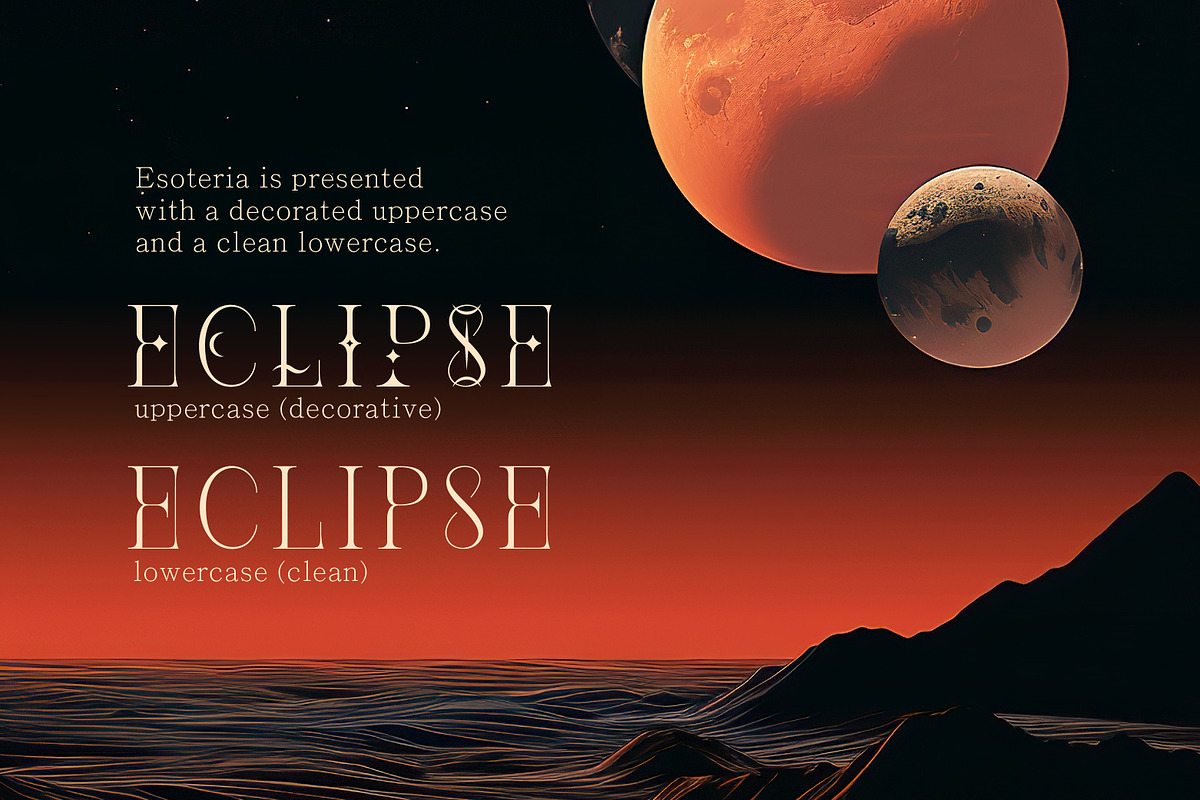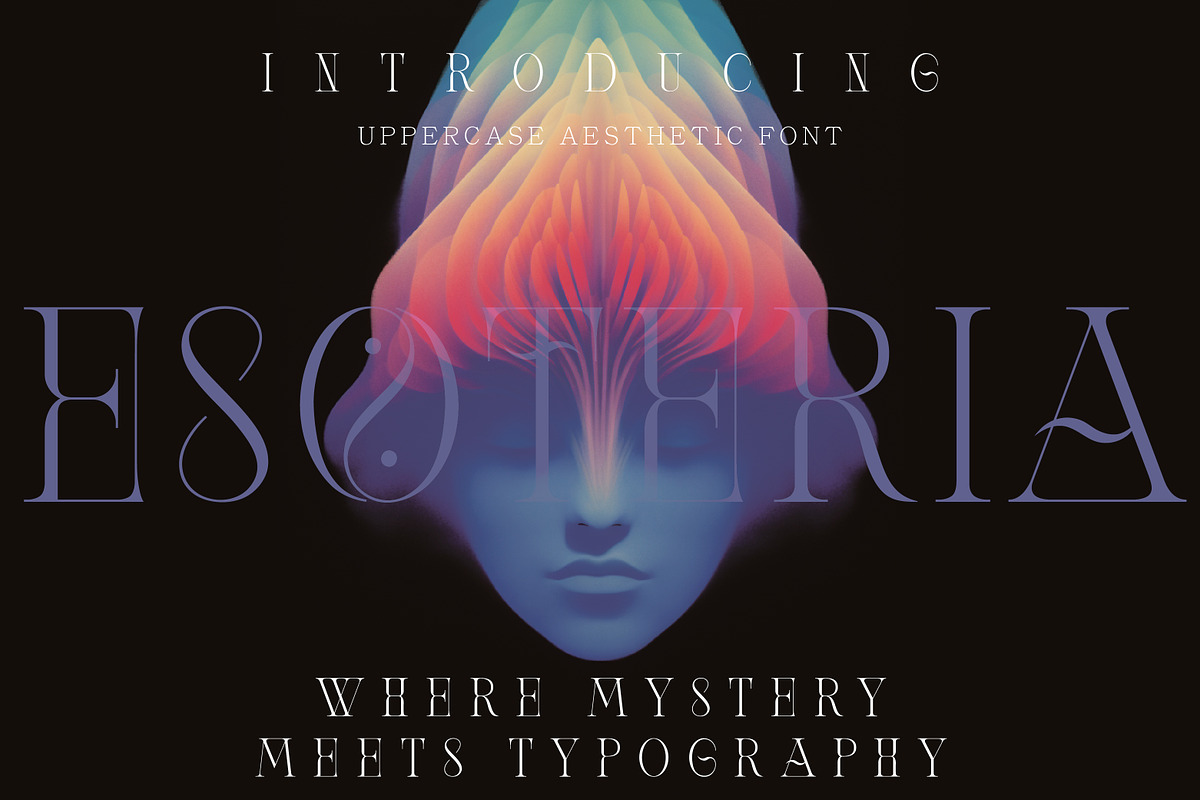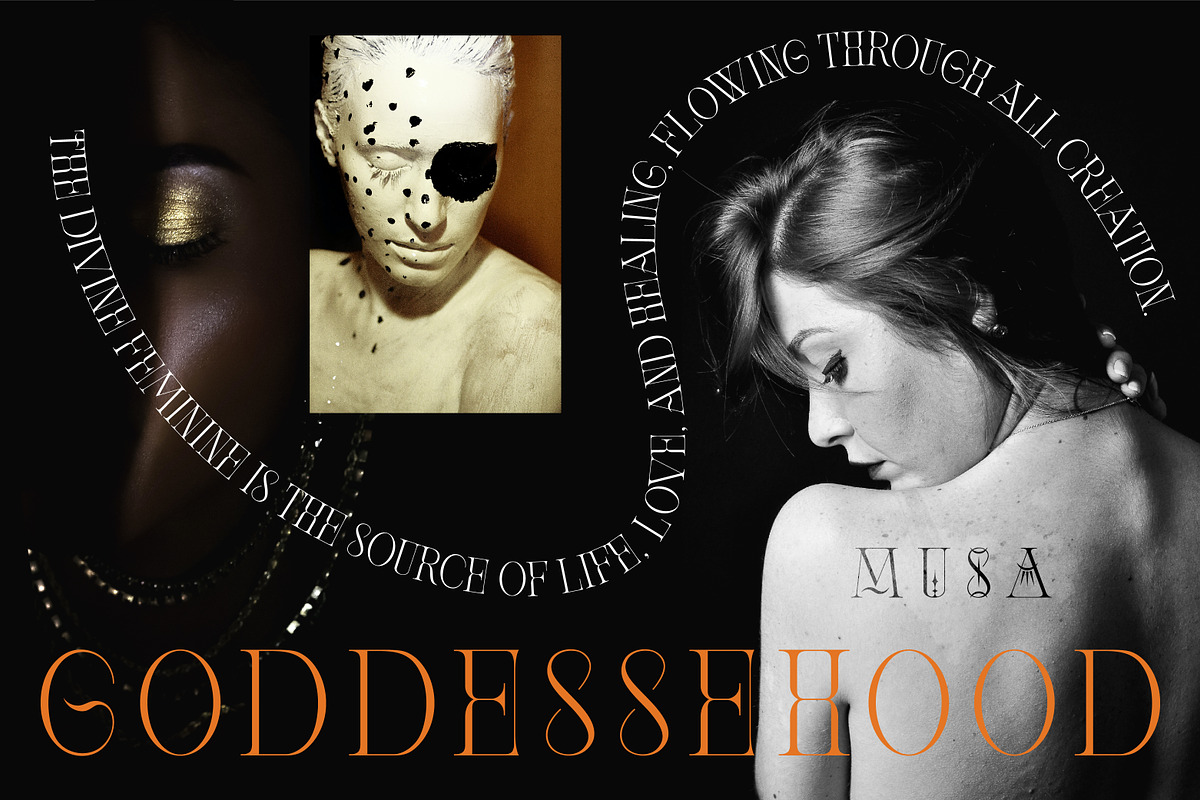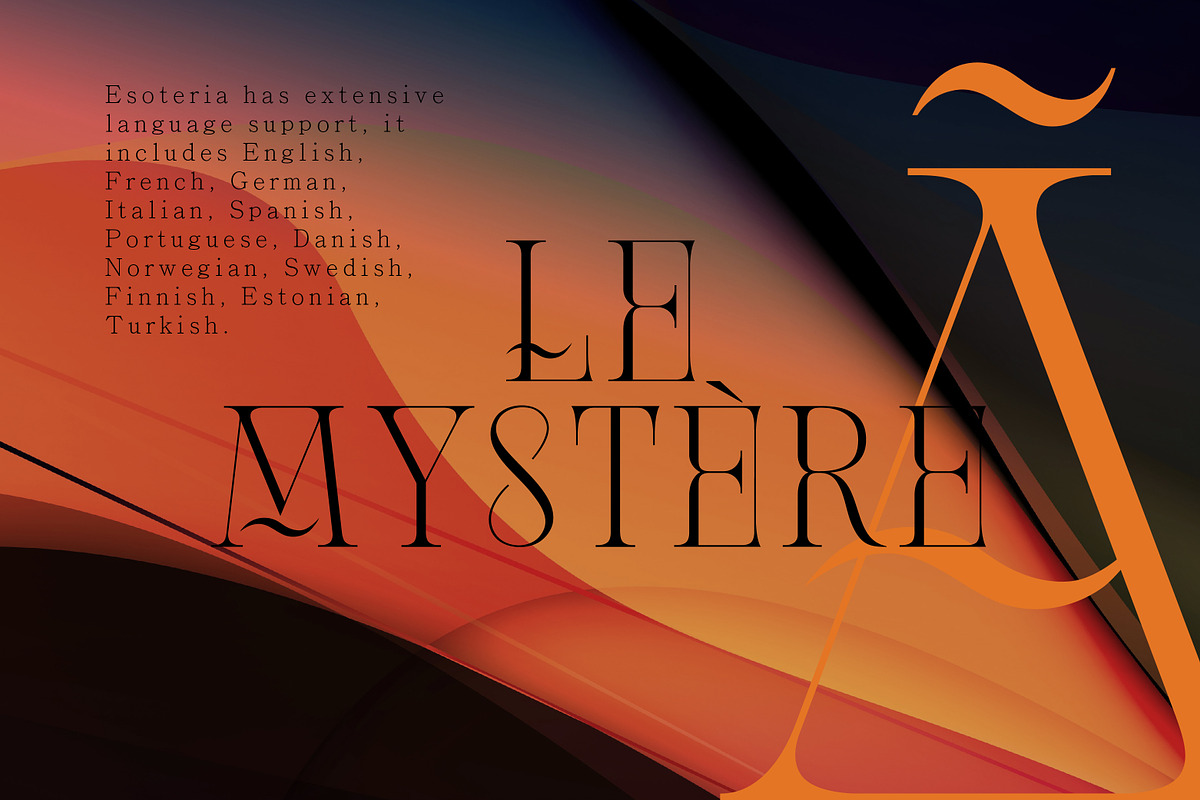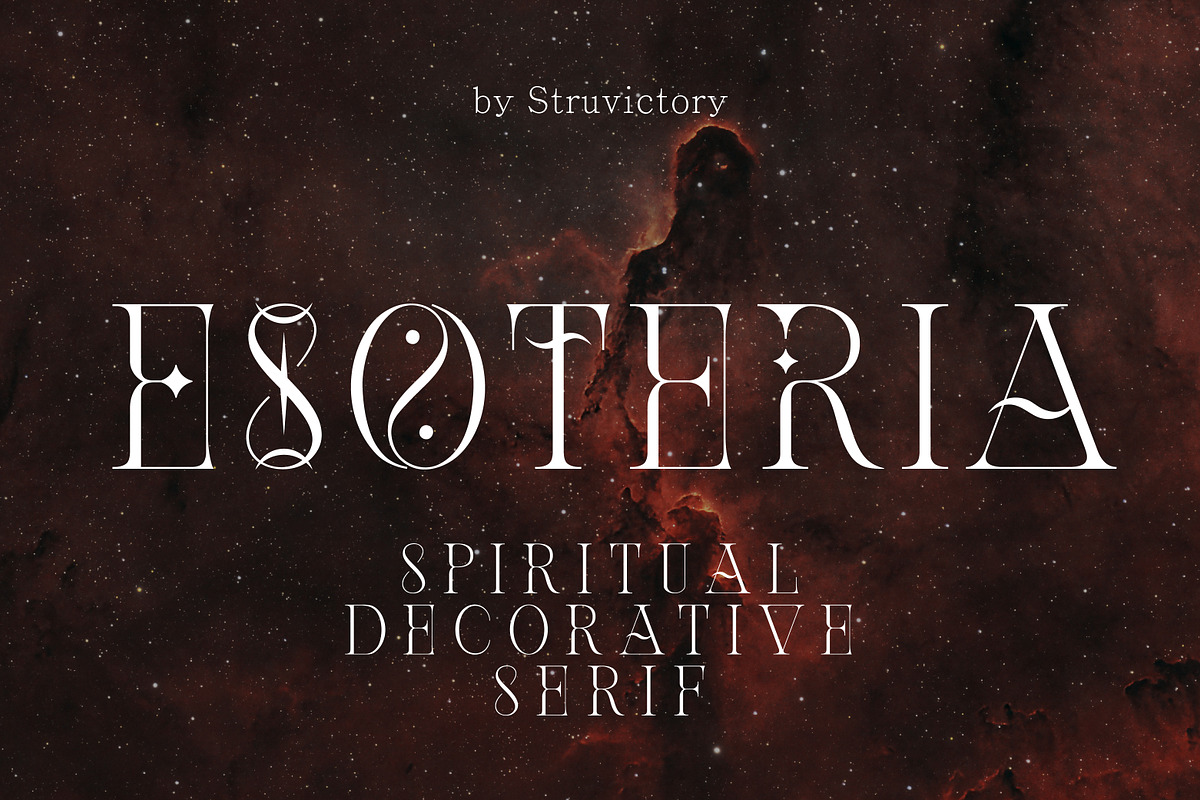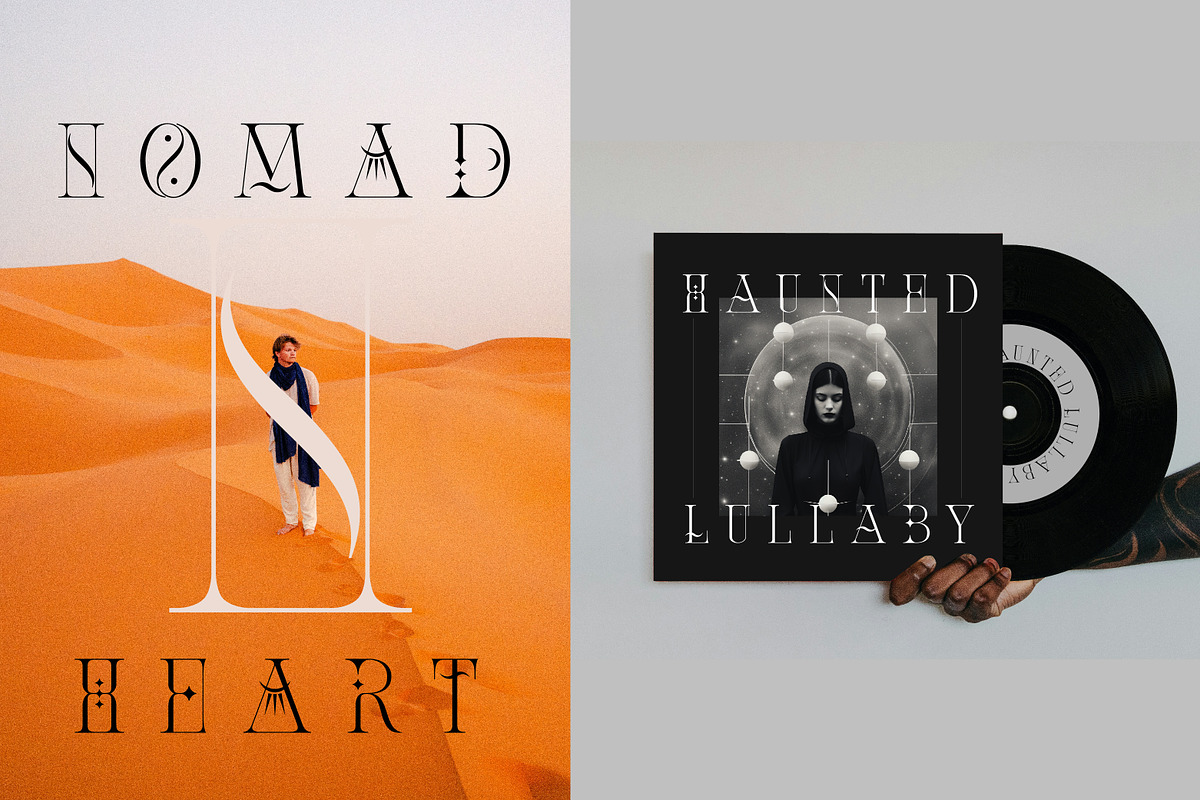
Esoteria Spiritual Decorative Serif
Esoteria is a font that whispers secrets. Its modern design, crafted with classic proportions and quaint serifs, exudes elegance and refinement. Geometric flourishes add a touch of mystery and depth. Perfect for logos, invitations, book covers, spiritual quotes, posters, and anything that needs to convey a sense of intrigue, intellect, and style.
Esoteria is presented with a decorated uppercase and a clean lowercase. The font includes the most popular latin-based languages, you can check the symbol you need by typing a couple of words in the font preview box.